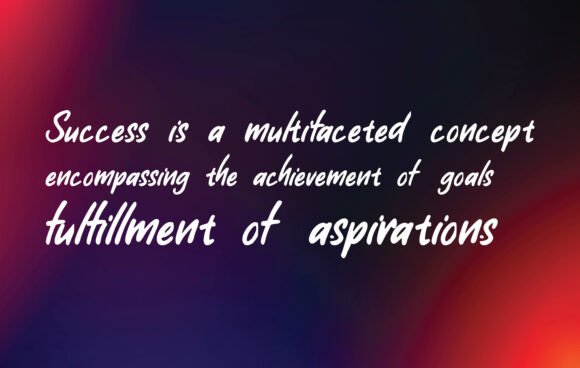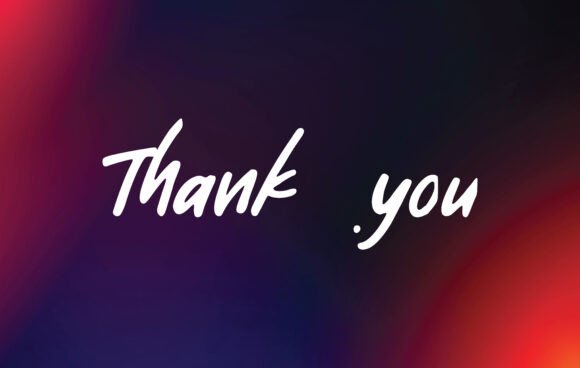
Discover the Magic of Enchanter Font: Elevate Your Designs with this Lovely Handwritten Font
Are you a designer or crafty enthusiast looking for a font that can add a touch of elegance and sophistication to your creative projects? Look no further than Enchanter Font, a beautiful handwritten font that has the potential to take your ideas to the highest level. In this article, we’ll explore the features and benefits of Enchanter Font, and why it’s the perfect choice for creating eye-catching logos, branding, and quotes.
What is Enchanter Font?
Enchanter Font is a lovely and beautiful handwritten font that is designed to add a personal touch to your designs. With its elegant and flowing lines, this font is perfect for creating a wide range of creative projects, from logos and branding to quotes and social media graphics. Whether you’re a professional designer or a crafty enthusiast, Enchanter Font is a versatile and easy-to-use font that can help you achieve your design goals.
Features of Enchanter Font
So, what makes Enchanter Font so special? Here are just a few of its key features:
- Beautiful Handwritten Style: Enchanter Font has a stunning handwritten style that is both elegant and sophisticated. Its flowing lines and curves make it perfect for creating eye-catching designs that stand out from the crowd.
- Versatile and Flexible: Enchanter Font is a versatile font that can be used for a wide range of creative projects, from logos and branding to quotes and social media graphics.
- High-Quality Design: Enchanter Font is designed to the highest standards, with clean lines and curves that look great at any size.
Benefits of Using Enchanter Font
So, why should you choose Enchanter Font for your next design project? Here are just a few of the benefits of using this lovely handwritten font:
- Create Eye-Catching Designs: Enchanter Font is designed to help you create eye-catching designs that stand out from the crowd. Its elegant and flowing lines make it perfect for creating logos, branding, and quotes that grab attention.
- Add a Personal Touch: Enchanter Font has a personal and handmade feel that can add a touch of warmth and personality to your designs.
- Stand Out from the Crowd: Enchanter Font is a unique and distinctive font that can help you stand out from the crowd. Its elegant and sophisticated style makes it perfect for creating designs that are both beautiful and effective.
In conclusion, Enchanter Font is a lovely and beautiful handwritten font that has the potential to take your creative ideas to the highest level. With its elegant and flowing lines, this font is perfect for creating eye-catching logos, branding, and quotes that stand out from the crowd. Whether you’re a professional designer or a crafty enthusiast, Enchanter Font is a versatile and easy-to-use font that can help you achieve your design goals. So why wait? Download Enchanter Font today and start creating your own magical designs!